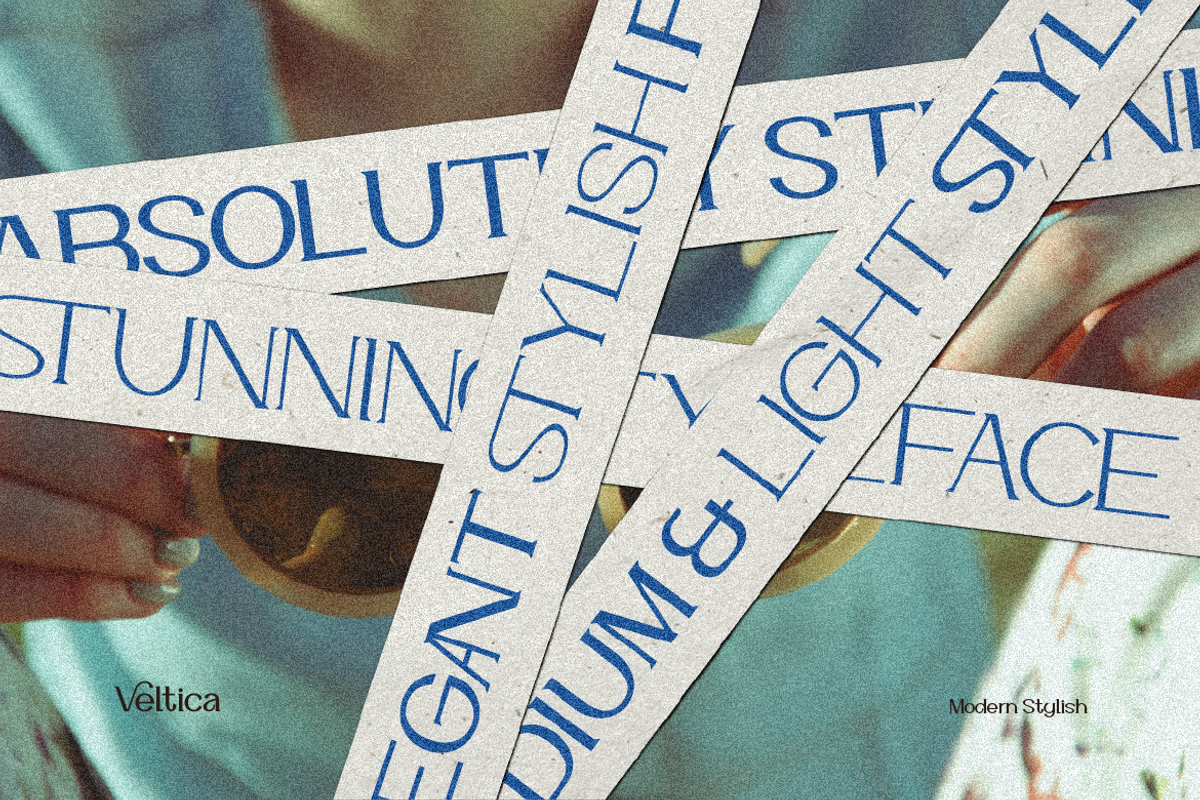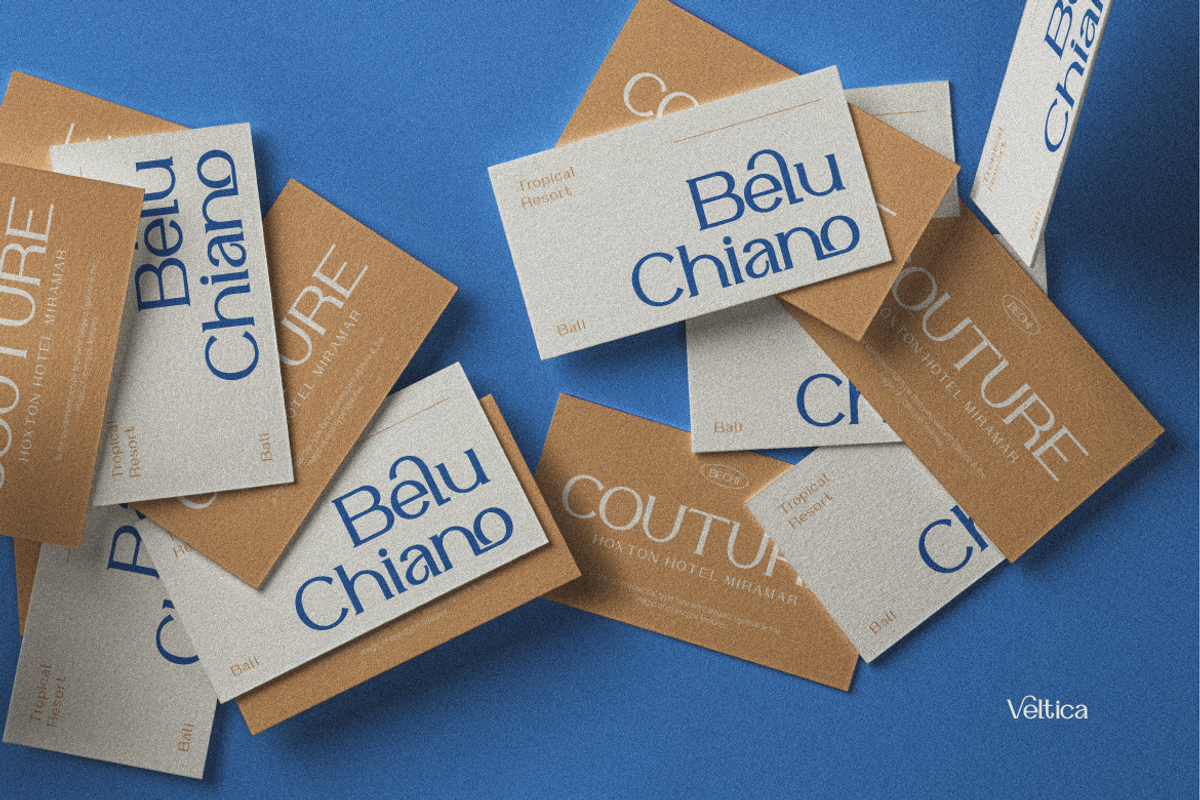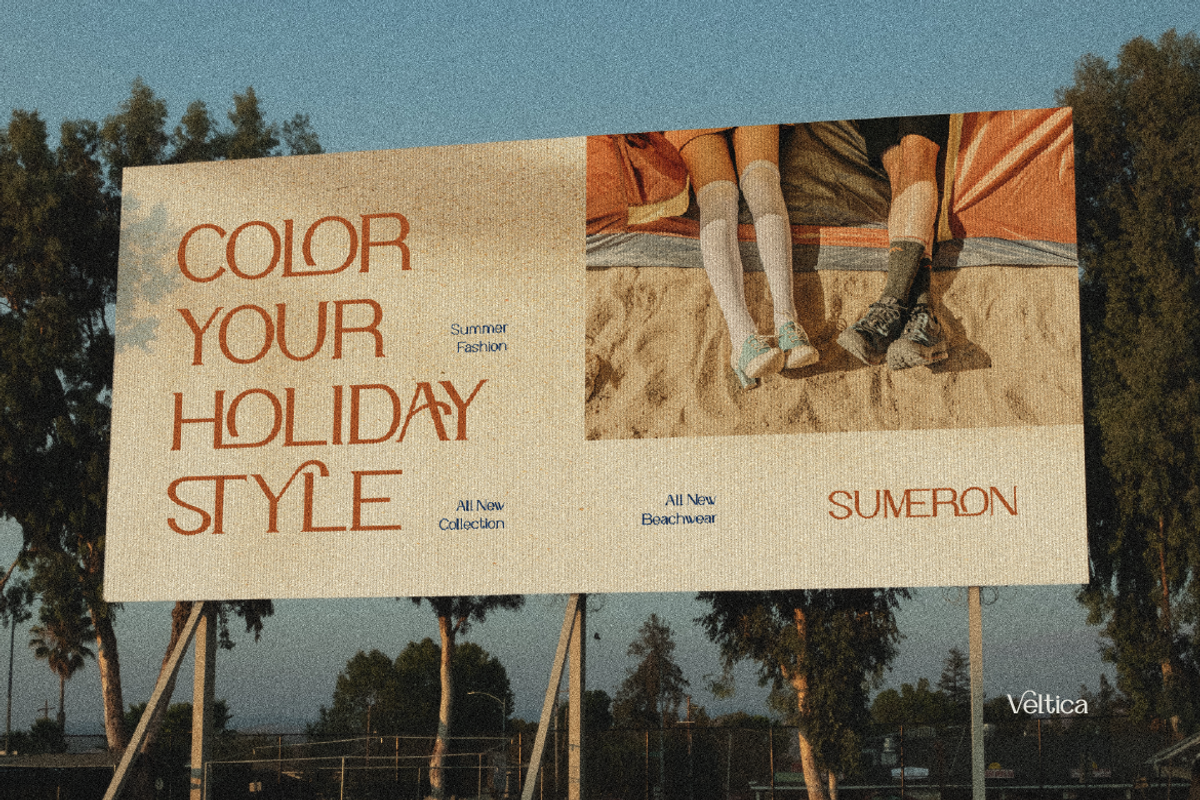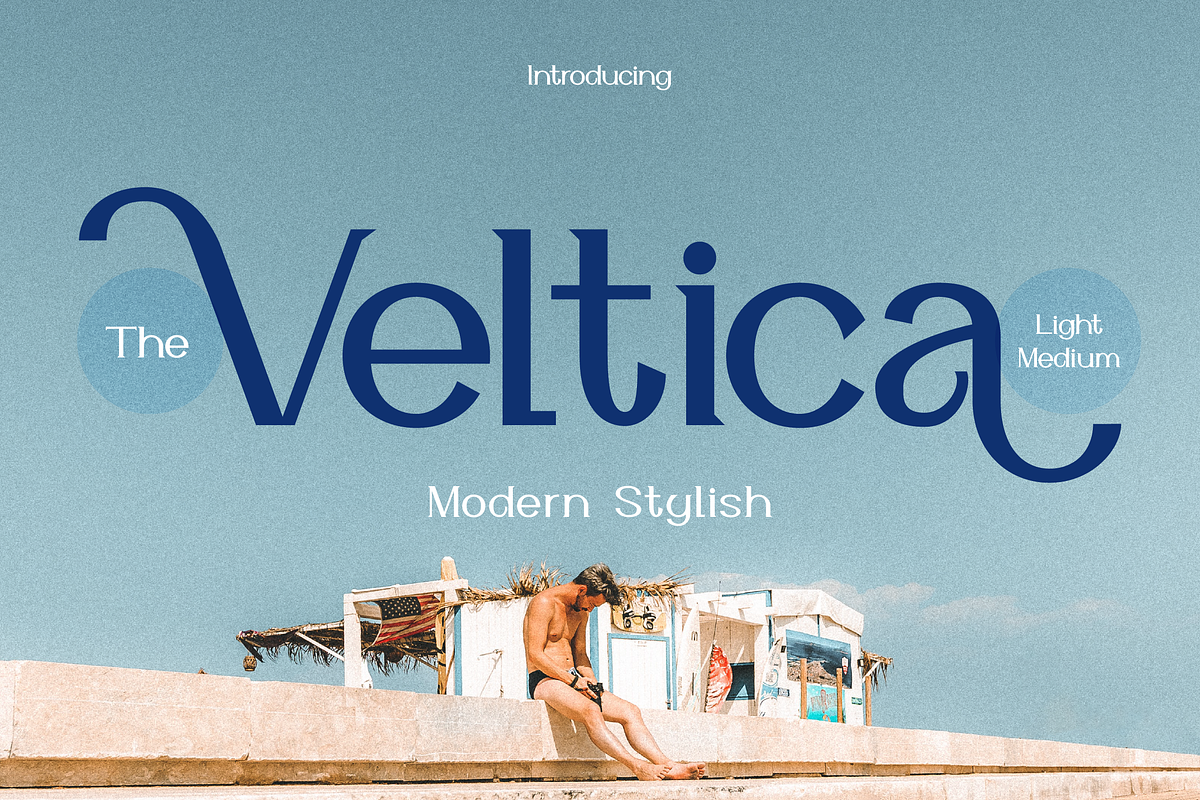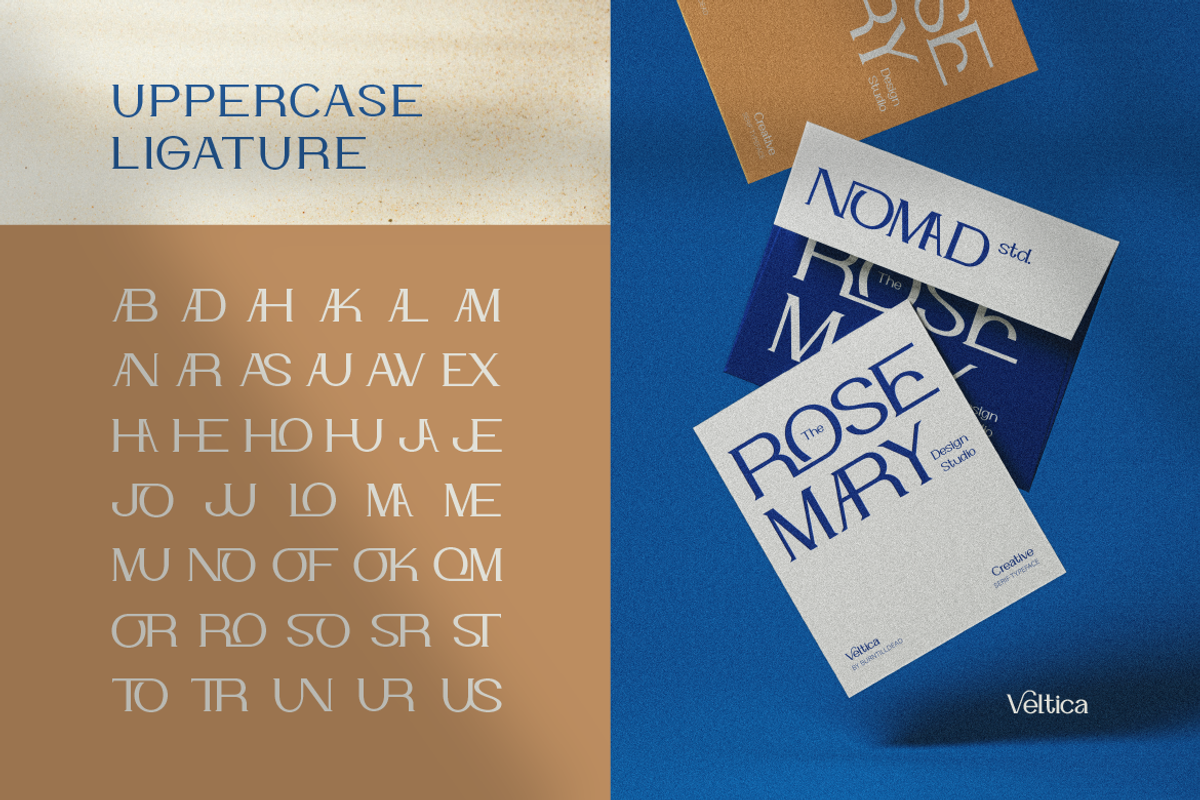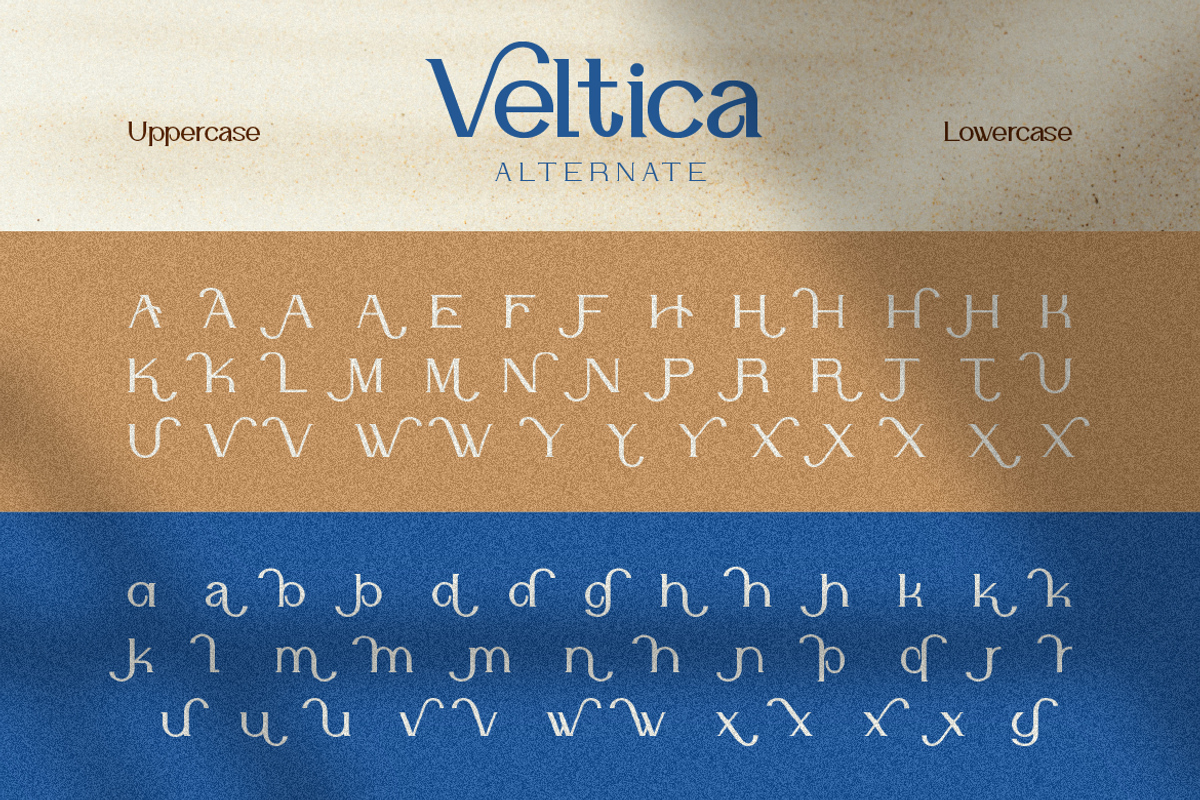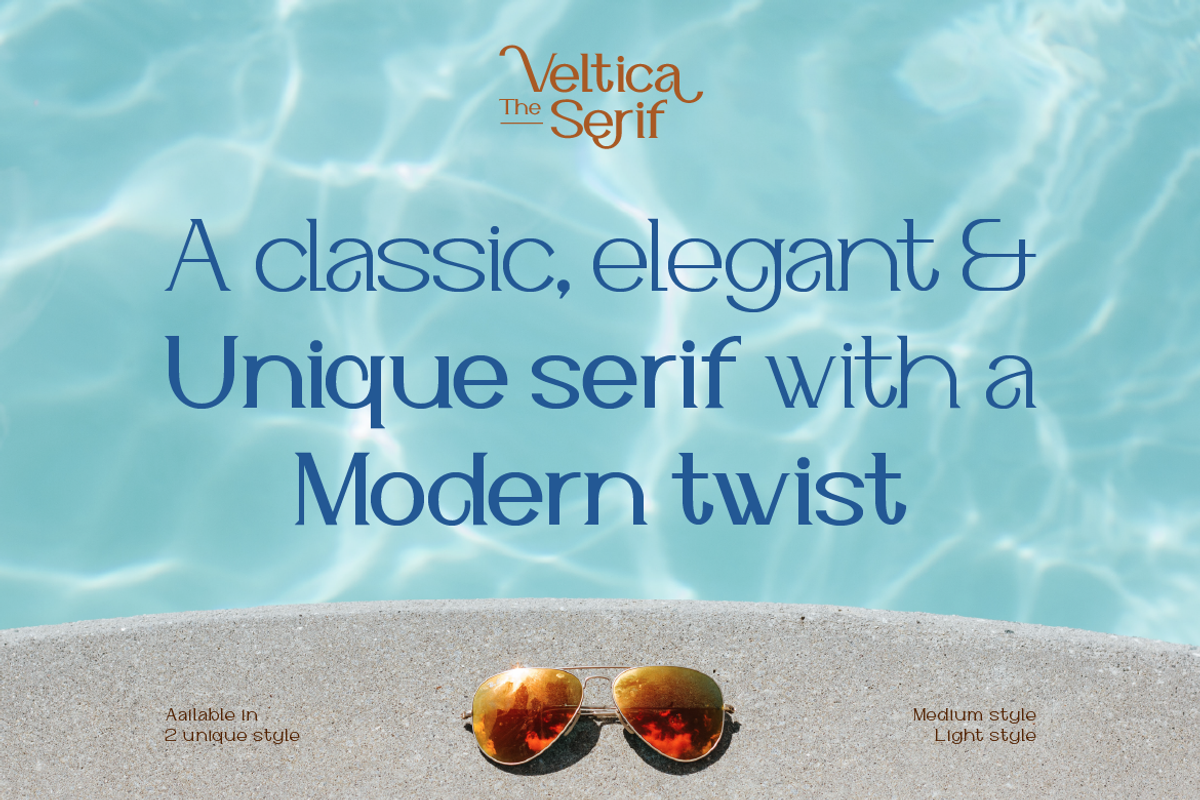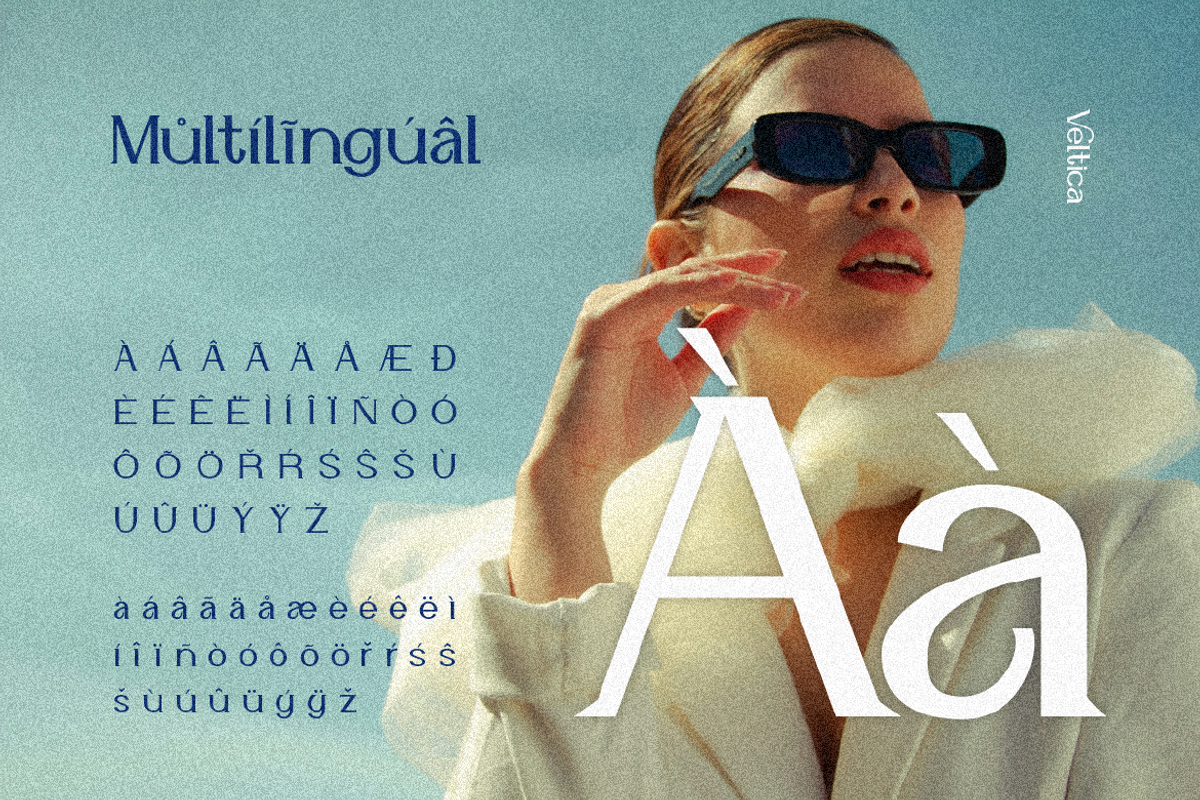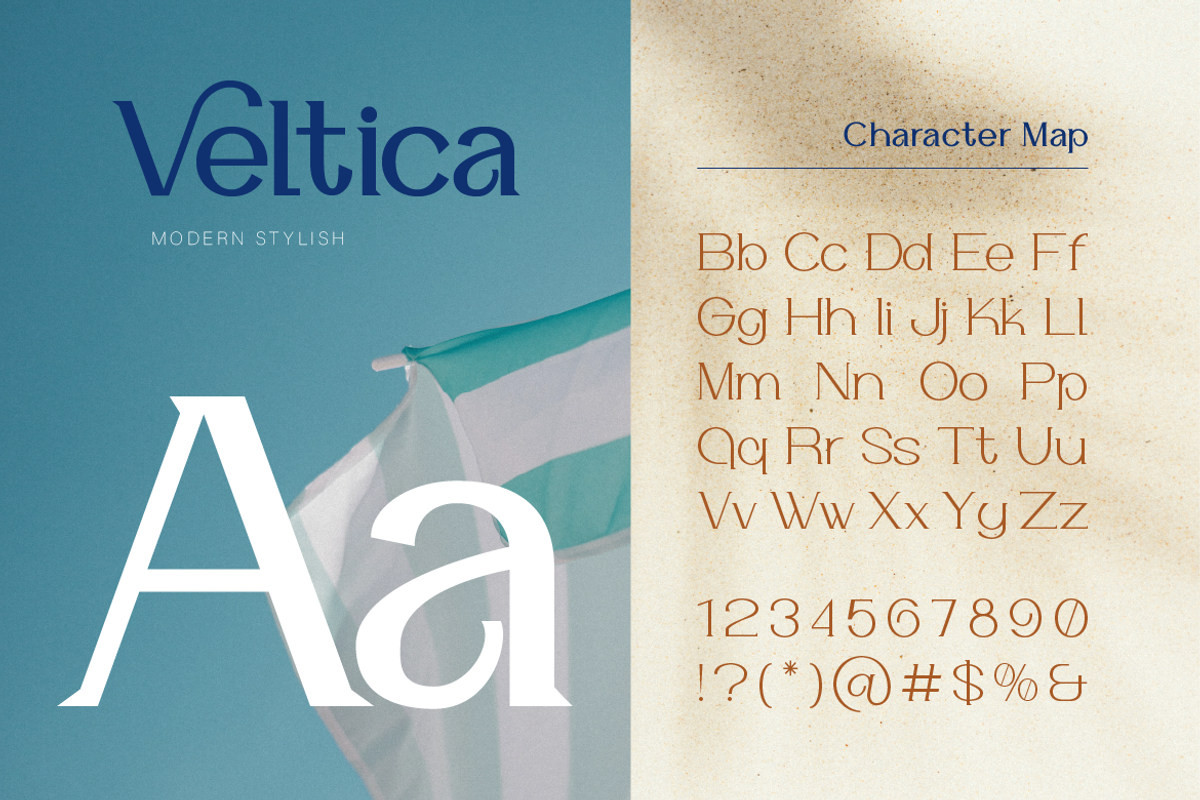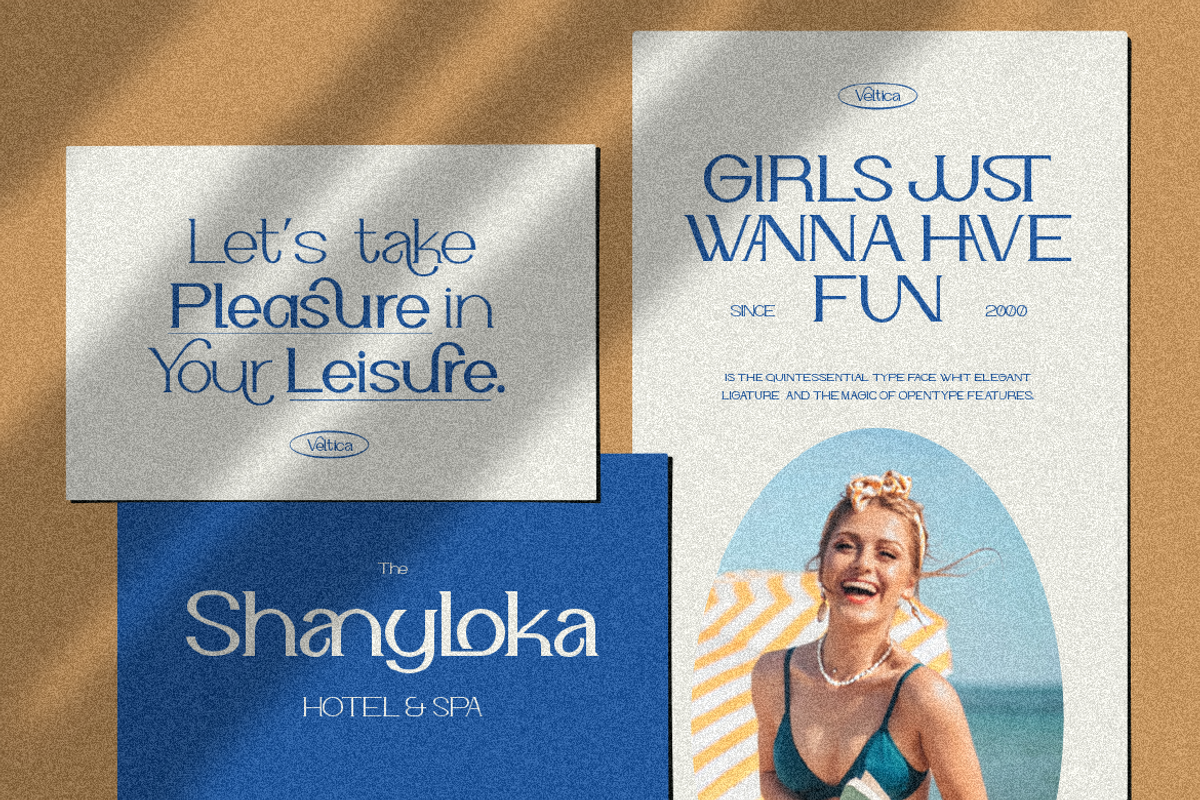
Veltica
Say hello to Veltica, our latest modern serif stylish! A classic, elegant and unique serif with modern twist, Veltica stands out with its light and medium style. Its clean lines and elegant curves bring a touch of sophistication to any design project, making it ideal for everything from branding to editorial layouts.
- A - Z set